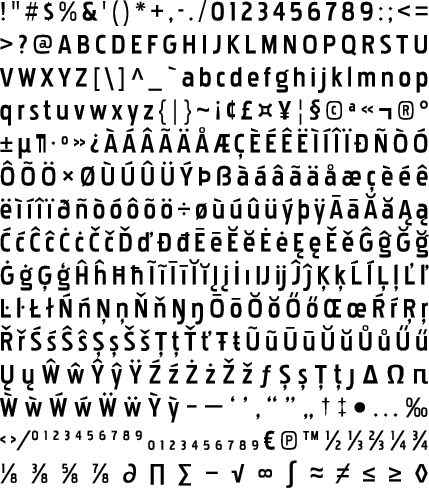
pakenham
Pakenham was inspired by Paul Renner’s 1950s creation, Steile Futura. This sans serif font has an upright, modern look with gently turned corners and generously proportioned loops. The overall appearance is squarish and quite compact but friendly. With 32 styles, there is sure to be at least one Pakenham that will suit your project.